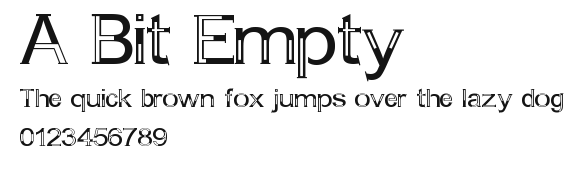
• Font Name: A Bit Empty
• Full Font Name: A Bit Empty
• Designer: Martin Leśków
• Manufacturer: Martin Leśków
About A Bit Empty.ttf
A Bit Empty.ttf is a modern, elegant sans-serif font designed for ultimate readability and visual harmony. Perfect for branding, headlines, web design, and print materials.